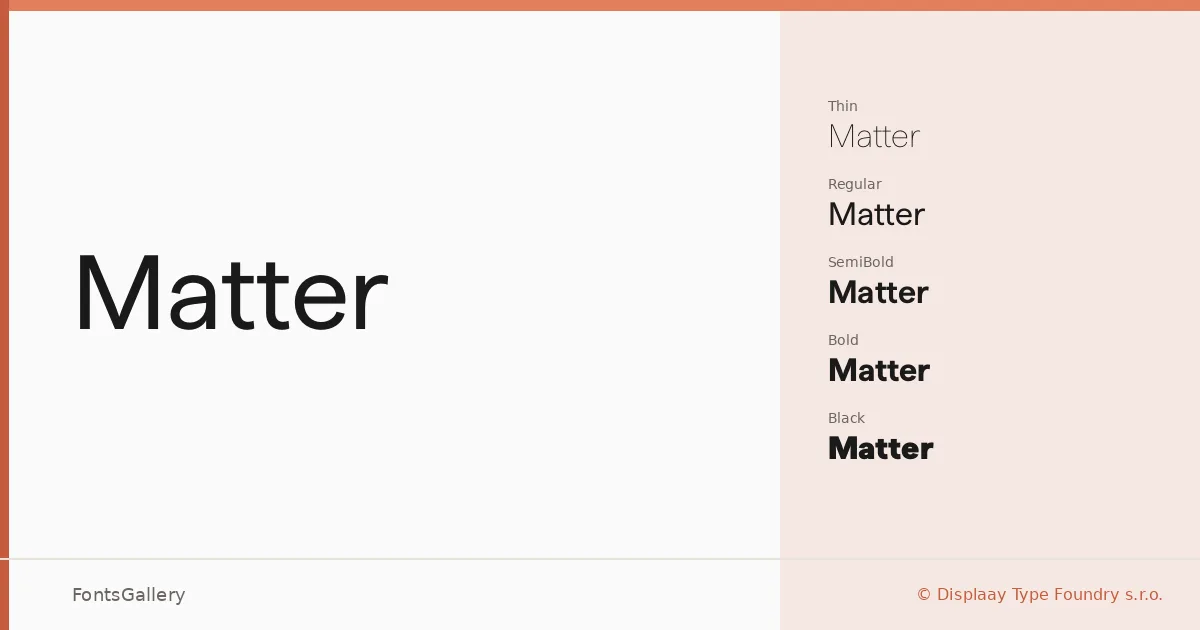
About Matter Font
There is a precision to Martin Vácha's work at Displaay Type Foundry that becomes immediately apparent when you load these files: every weight, every spacing variant, every italic has been thought through as part of a coherent system rather than as an afterthought. The family spans three distinct spacing philosophies — proportional, SemiMono, and Mono — alongside an extended x-height sub-family (XH), all of it threaded together by a variable instance and backed by a Roman and italic axis at each grade. The letterforms themselves sit in that disciplined zone of the sans serif where geometry informs but does not dominate, keeping strokes clean and terminals unambiguous without tipping into the cold.
Minimal and modern in character, the family runs from Thin through Heavy and Black, with each weight available as a full upright and italic pair. The Mono cuts bring fixed-width rhythm that holds up in code samples or tabular data, while the SemiMono variants occupy a considered middle ground — looser than a true monospace, tighter than the proportional cuts — which gives interfaces and editorial layouts a consistency without the rigidity. Across all these variants the weight progression feels even, so moving from Light to Medium to Bold in a headline hierarchy never produces an awkward jump. Latin, Vietnamese, Cyrillic, and Greek coverage means the system can carry a multilingual branding programme without switching faces.
The bold and professional side of the family suits branding work, website headers, and presentation decks where clean authority is wanted; the lighter proportional cuts and the XH subfamily carry well into magazine text columns and UI contexts that need slightly elevated x-heights for small-size readability. For contrast pairings, the family has been noted alongside Canela, ABC Arizona, Armelie, Kactigona, and 321 Impact — serif and display faces that give warmth or punch against the neutrality of the sans.